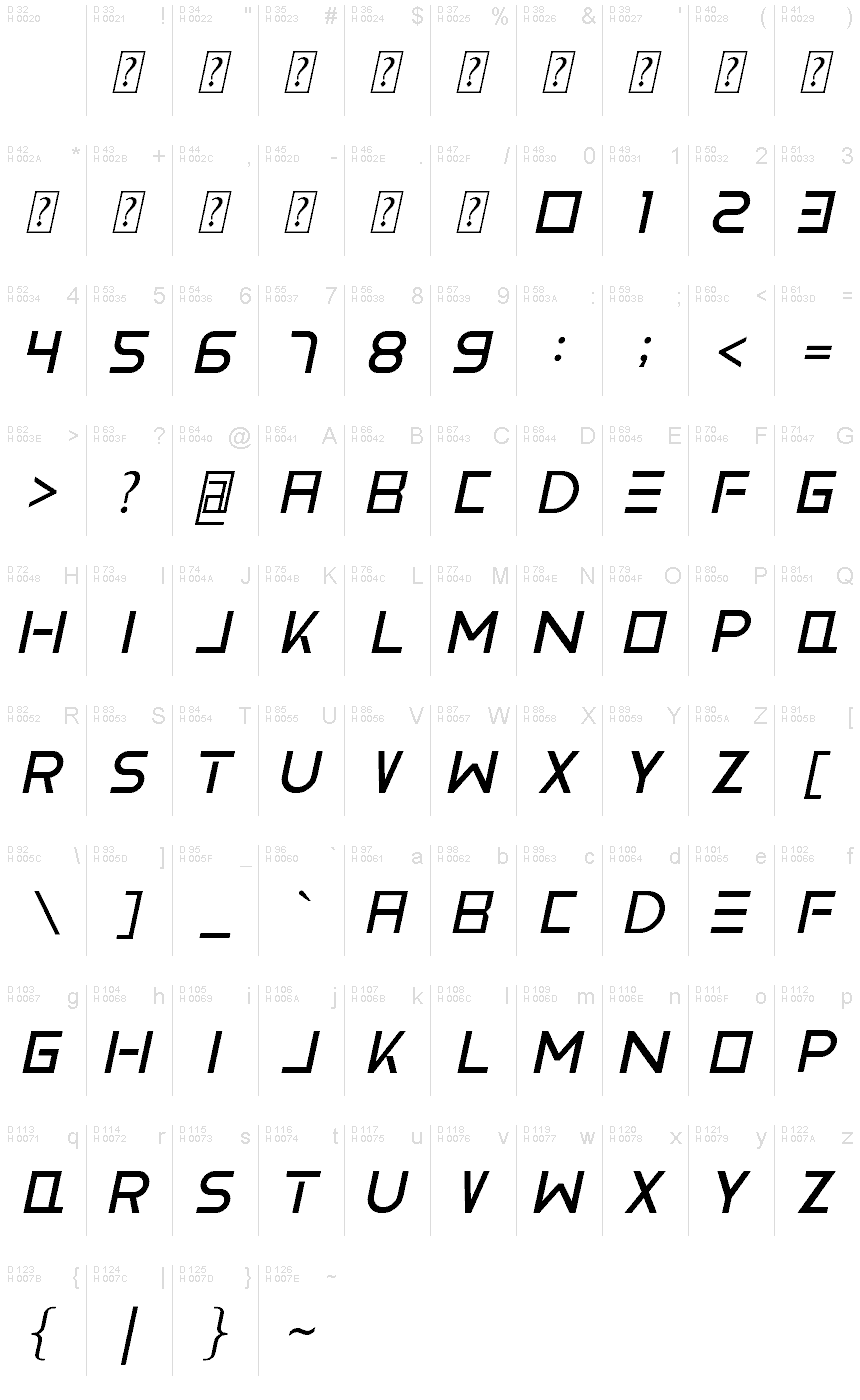
Vemanem Pro Italic
Vemanem Pro Italic is a futuristic display font created by ffeeaarr. Vemanem, derived from the word “Emanem” (a combination of emanate and manifest), is an experimental collection of fonts that aims to create a sense of energy.
Vemanem Pro Italic uses slanted, straight, and slanted lines to project a dynamic, bold look. It’s a sans serif font with a contemporary design that works great for futuristic branding, headlines for posters, advertisements, magazines, websites, mobile apps, and others.
Vemanem is a dynamic display sans serif font.